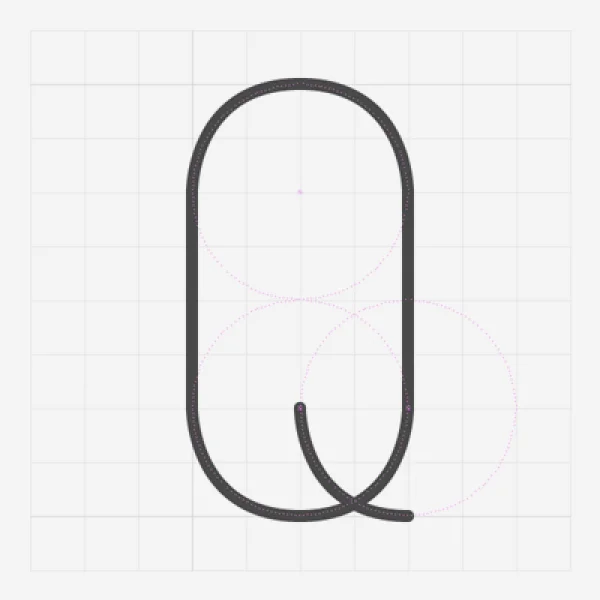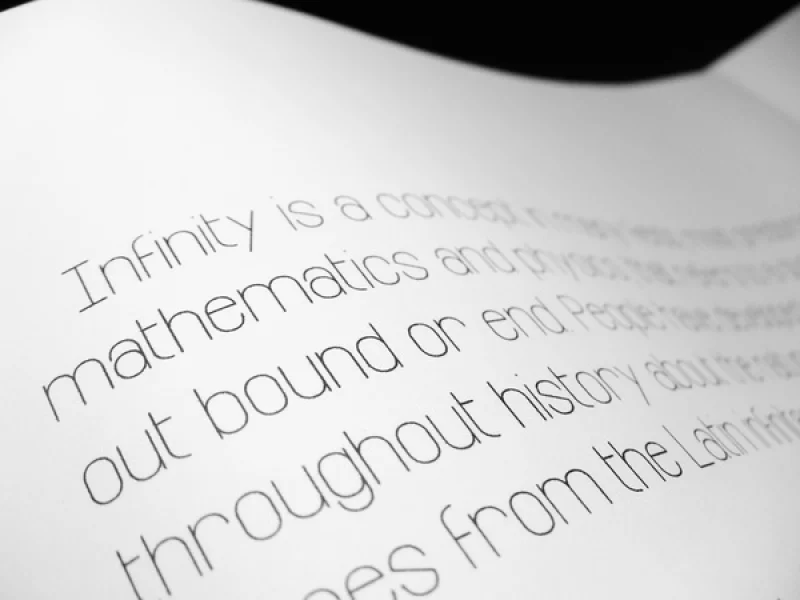
Infinity free font was created from the simplicity of lines and curves with round corner and cap. The name comes from guides for creating, they are similar to number 8 and infinity symbol. For my personality, I really like the number 8 because it is my birth date. Because of my lineage, in China, The word for the number 8 (八 : bā) sounds similar to the word which means "prosper" or "wealth", the number 8 is viewed as such an auspicious number that even being assigned a number with several eights is considered very lucky. The font is applicable for any type of graphic design - print, web, motion graphics, etc.